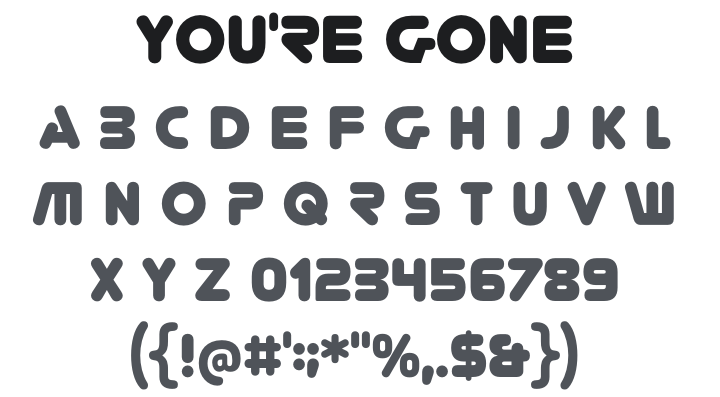
You're Gone Font Family
About You're Gone
You're Gone is a rounded techno display typeface with a warm, industrial 1980s personality — its detached letterforms feature soft, pill-shaped rounded corners and a friendly geometric precision that balances mechanical authority with approachable charm. Available in Regular and Italic. Smart OpenType features include flipped variants for A, W, and M plus an alternate R. Perfect for sci-fi interfaces, retro-tech branding, game titles, and any headline needing confident, softly futuristic character.